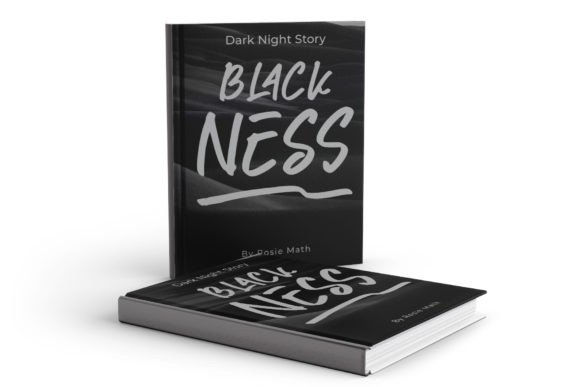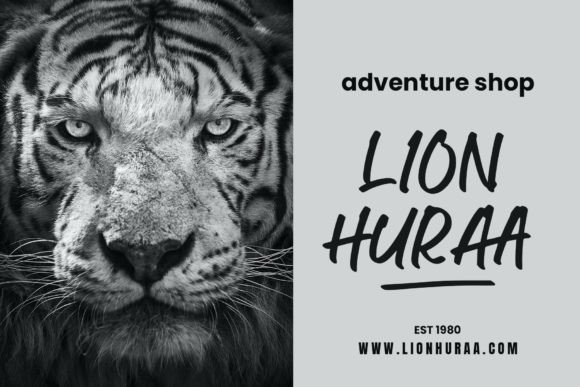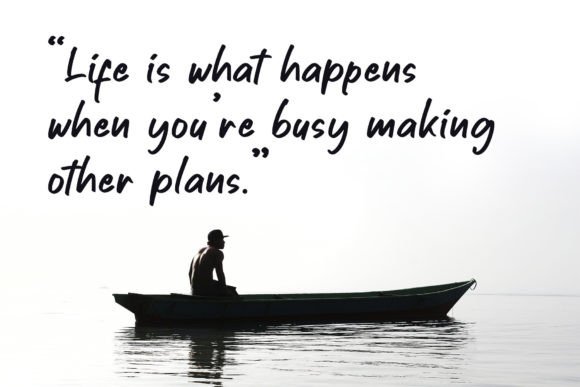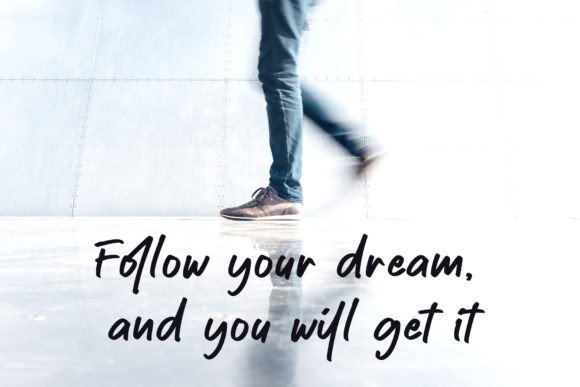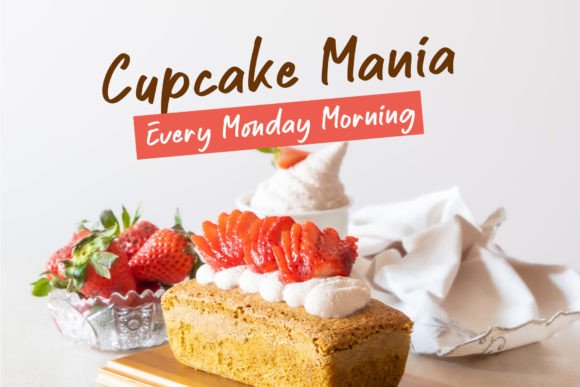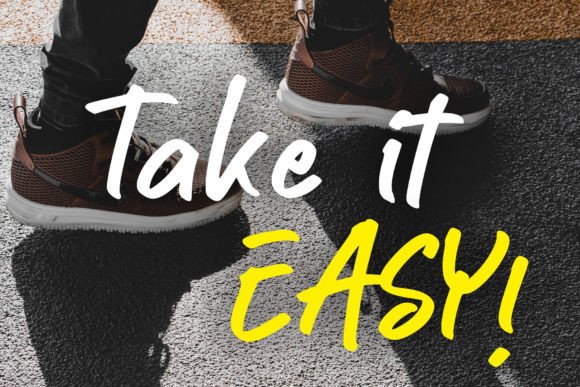
Introduction to Larheen Font
Larheen is a stylish and modern handwritten font with a truly unique feel.
Best match for logos, headers, Titles, Prints & other Creative process possibilities This font is PUA encoded, which means you can access all of the glyphs and swashes with ease.